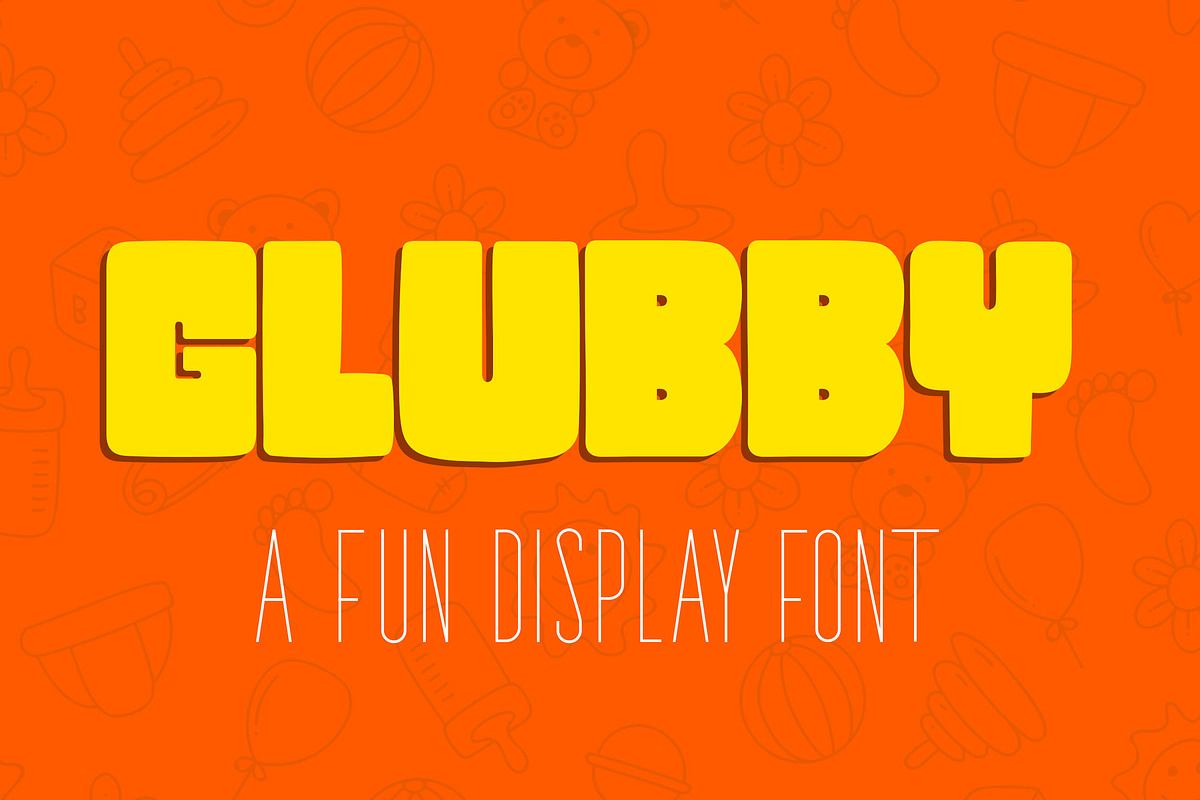
Glubby – Fun Display Font Free Download is a bold and playful typeface full of charm and bubbly personality. With chunky shapes, quirky curves, and an upbeat vibe, Glubby is perfect for kids’ projects, toy packaging, birthday invitations, cartoons, and colorful branding.
Its friendly, rounded letterforms are designed to bring joy and energy to every design, making it ideal for both print and digital use. Whether you're working on educational materials, cheerful social media content, or a fun logo, Glubby adds a pop of fun that’s hard to ignore.
Designers love Glubby for its bold look, joyful spirit, and easy readability. Ready to make your next project stand out with playful style? Download Glubby – Fun Display Font Free Download and let your typography smile big and bright!